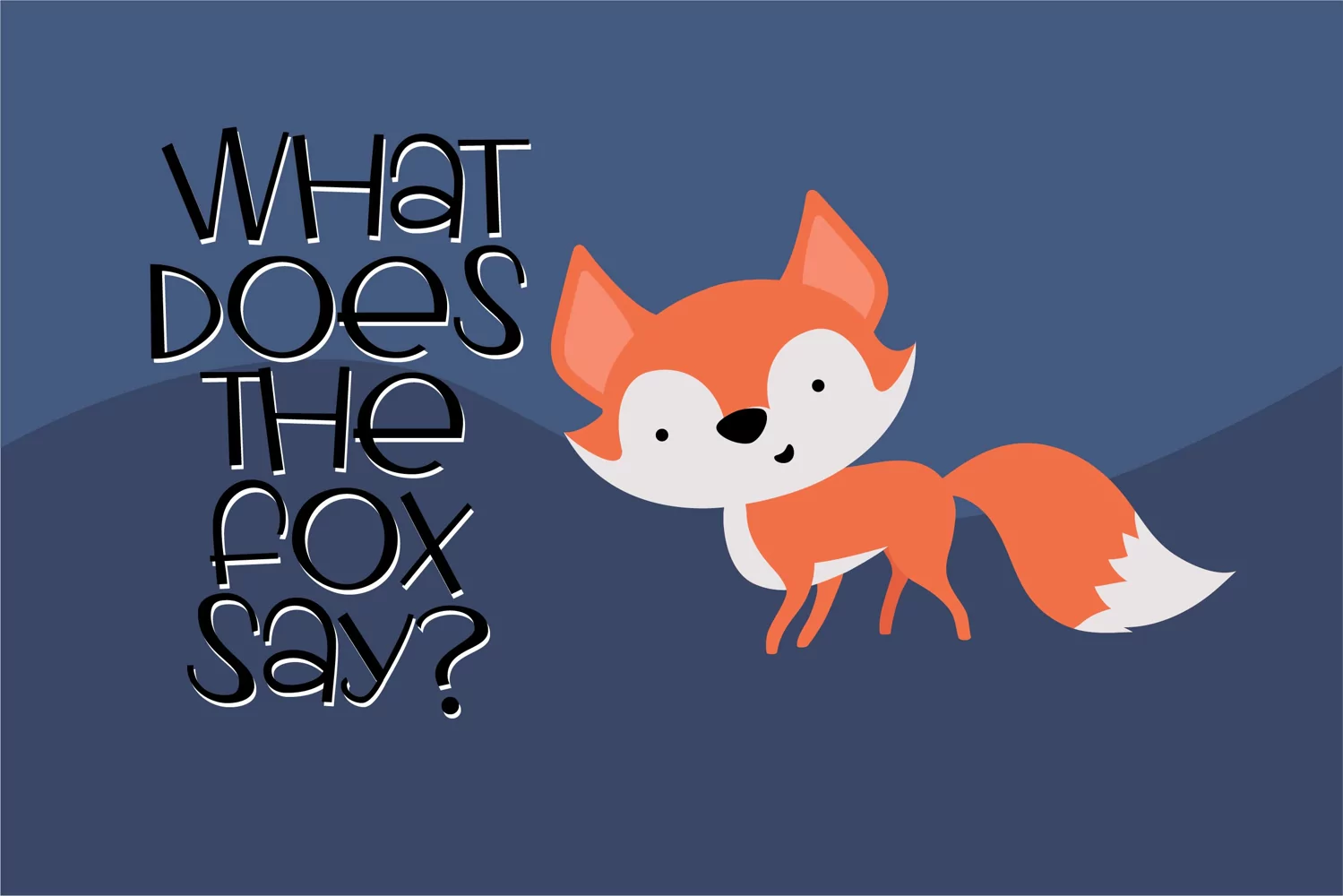
Neither is a whimsical and chic sans serif font. Whether you’re using it for crafts, digital design, presentations, or making greeting cards, this font has the potential to become your favorite go-to font, no matter the occasion! Includes regular, bold, demibold, and Neither Pow